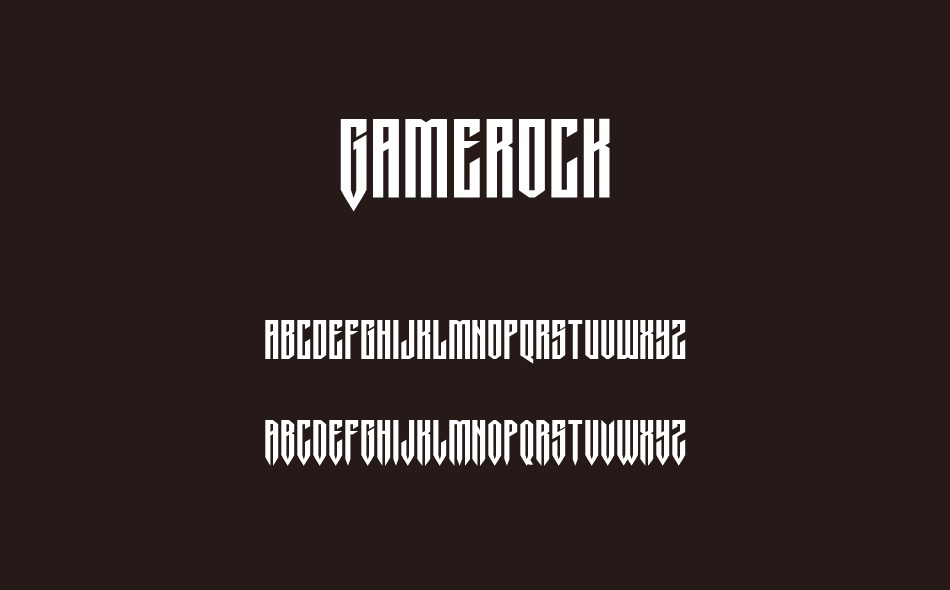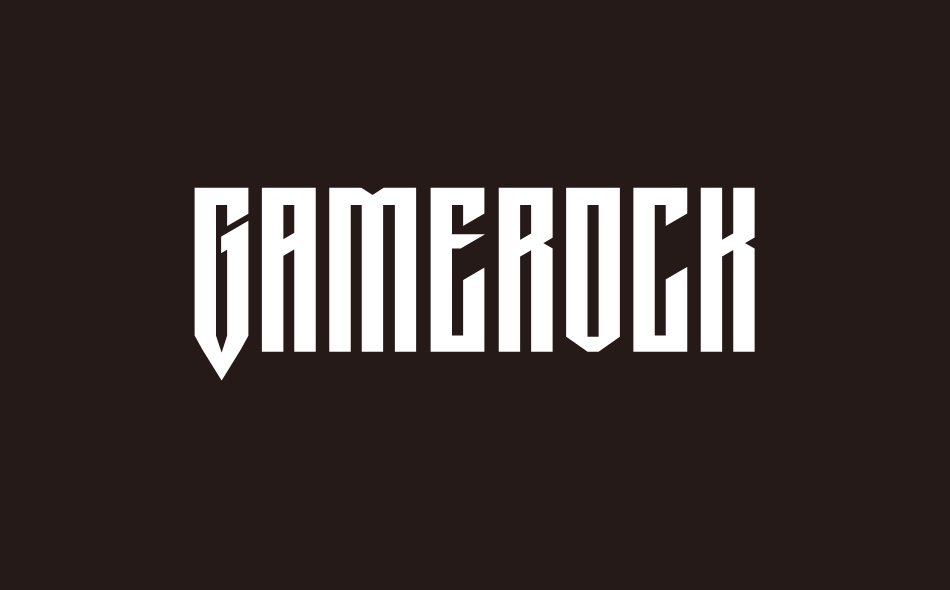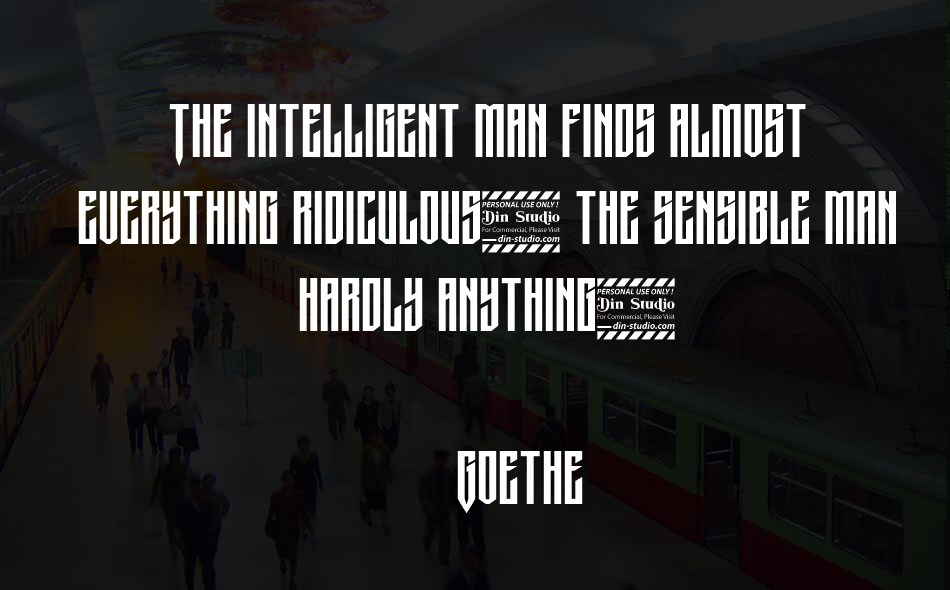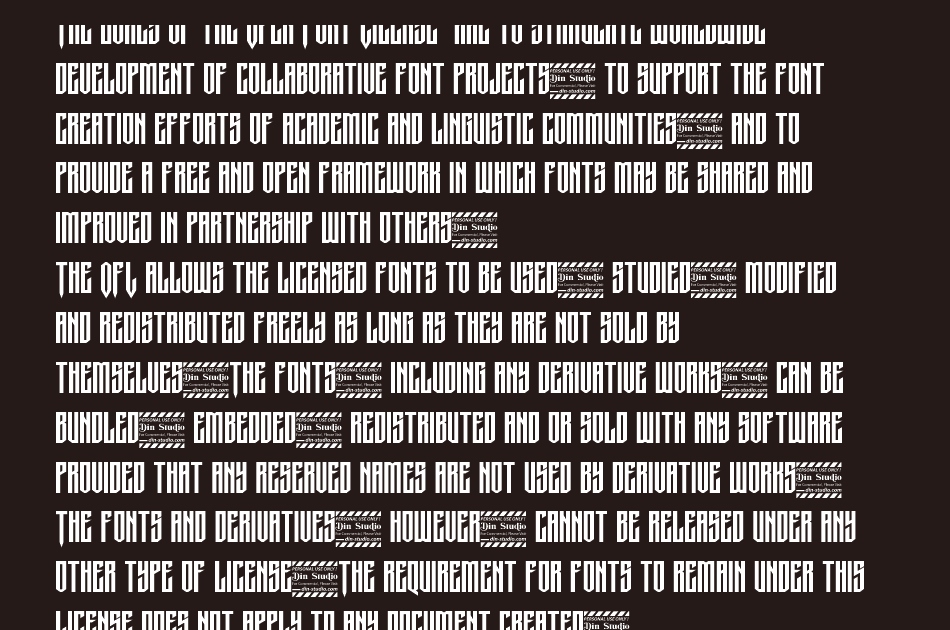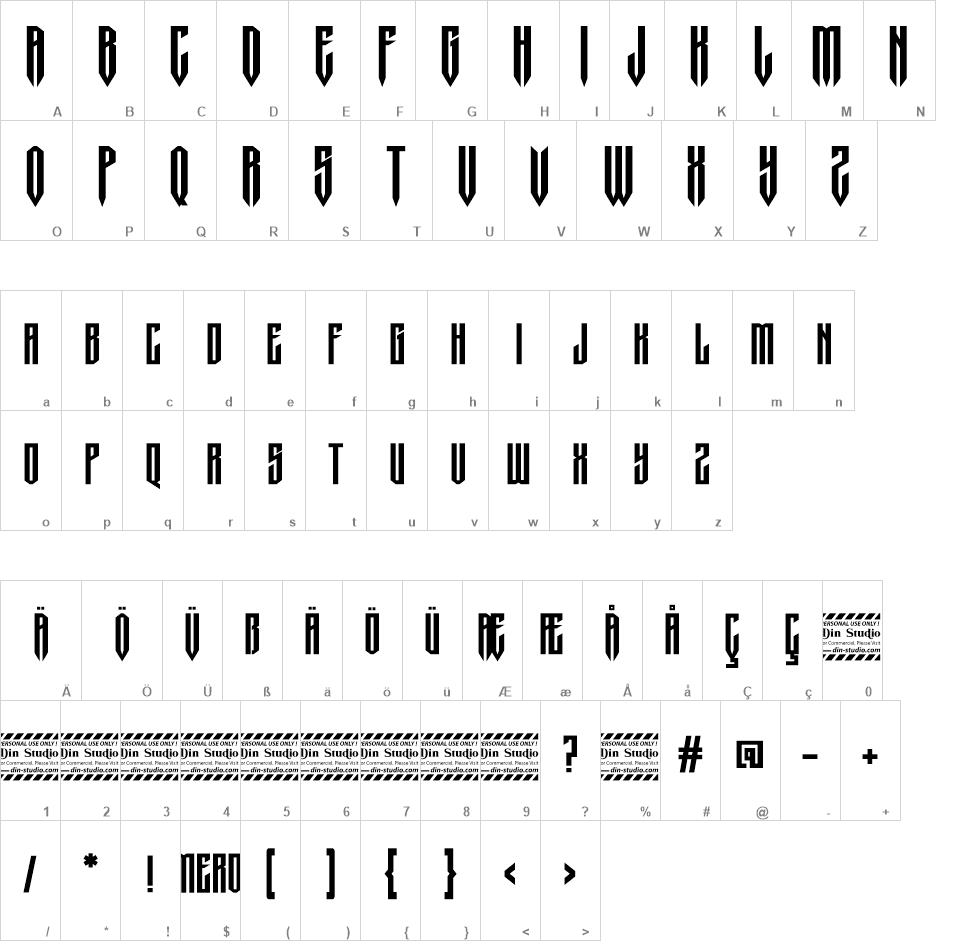
Gamerock font
Gamerock is a classic sport font. Made for any professional project especially that related to the sports.Beside that, this font can be used for printing, branding and quotes
Gamerock is a classic sport font. Made for any professional project especially that related to the sports.
Beside that, this font can be used for printing, branding and quotes.
Features:
• Alternates
• PUA Encoded
• Multilingual Support